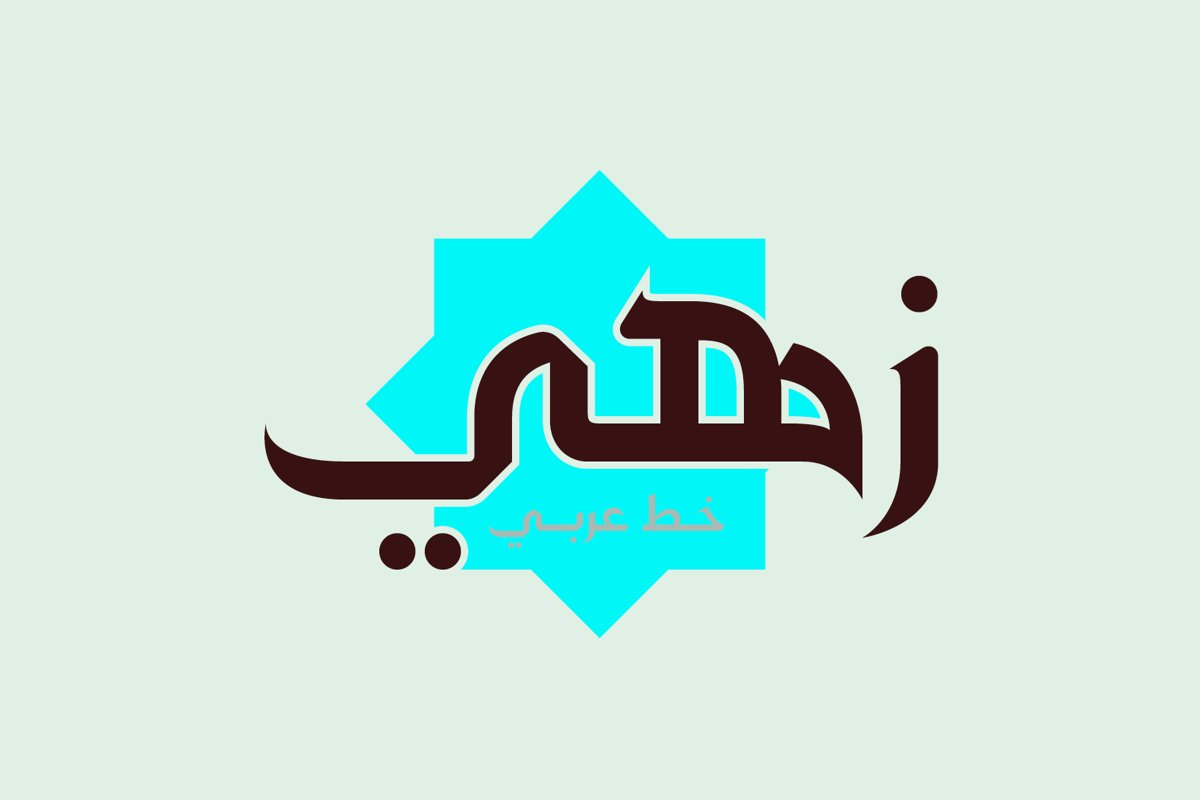
Zahey - Arabic Font
Zahey (the Arabic for ‘Vivid’) is an Arabic display font that uniquely combines two contradictive design features; the solid geometric structure and the traditional penmanship of Arabic calligraphy. The font suits publication design, branding and web. Zahey supports Windows, Mac and mobile applications.